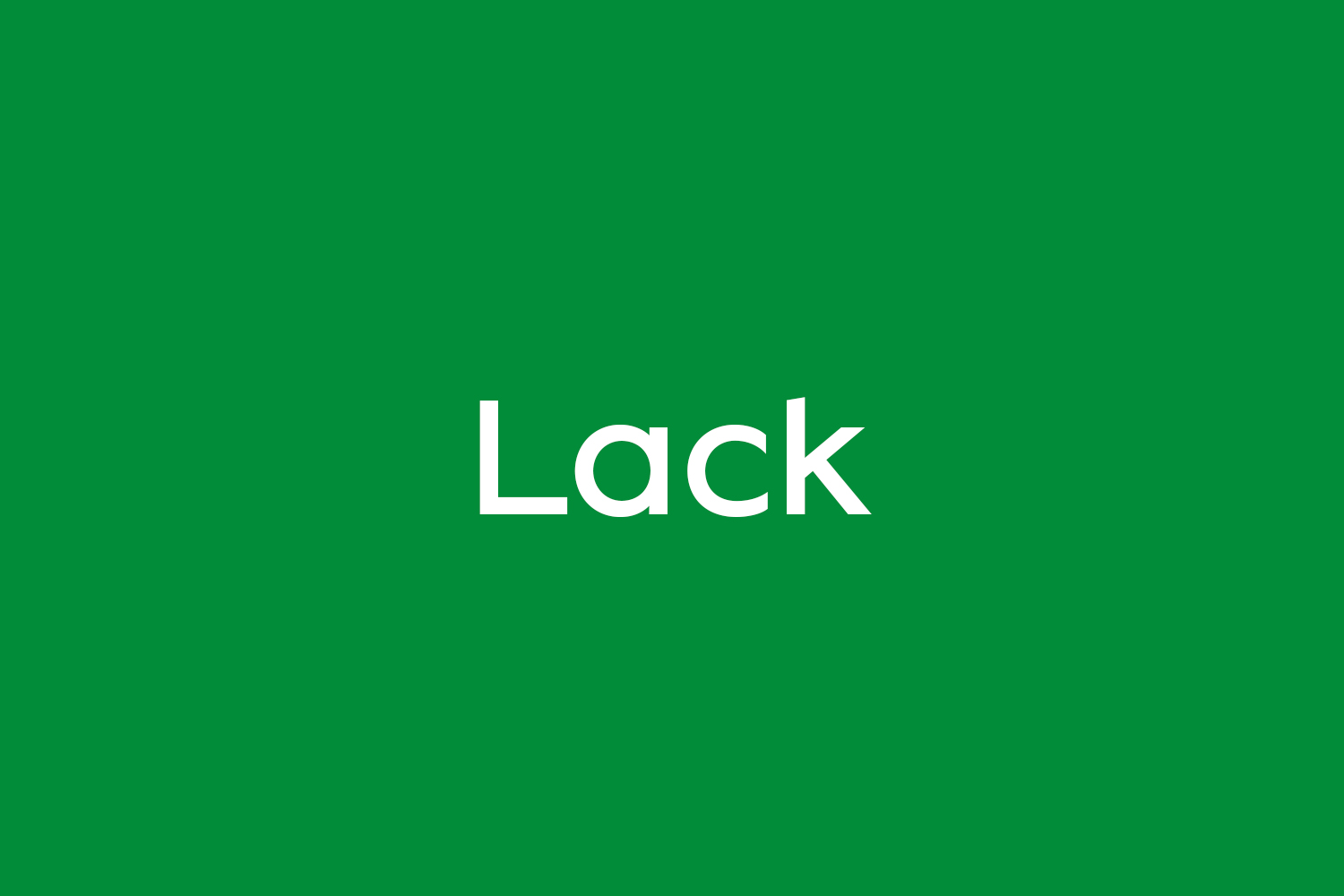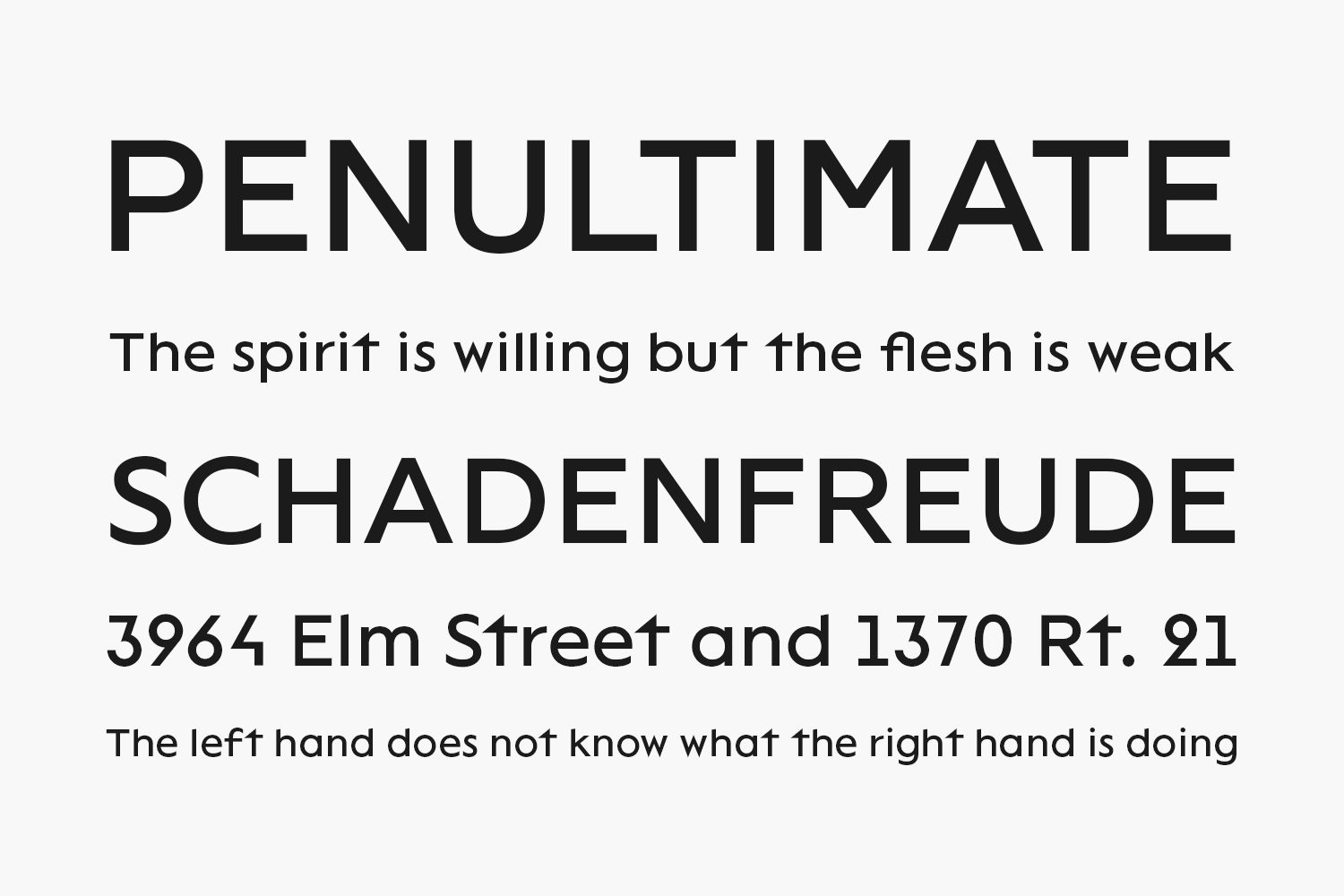
This is the updated VTFLack. It is a brave, contemporary and experimental typeface and comes in a single weight with its Italic. It works well as a display typeface, but is also designed to perform in all kind of texts sizes. Some crazy surprises are hidden into 3 differents stylistics sets!
VTFLack was originally created by Adrien Midzic in 2013. In 2016 he begins to rework the font in order for it can be used for several graphic domains and not only for experimental creations. In this update, inspired by the original lowercases, the legibility is optimized.
Now the Lack’s emblematic set with its crazy uppercases is available in two stylistic sets called O.V.N.I-1 and O.V.N.I-2. Another set named “Alternate” has also been created, in which alternative forms for some tiny ones are available. This font family is free for both personal and commercial purposes.